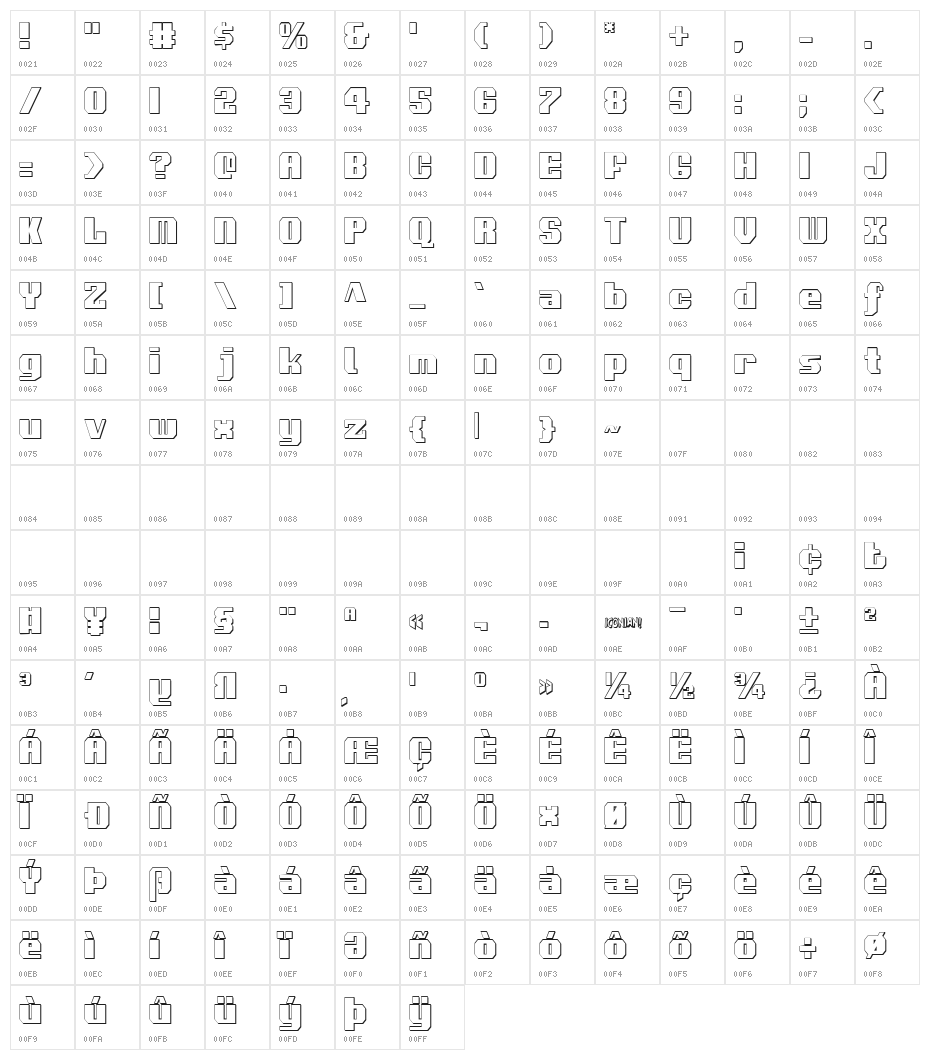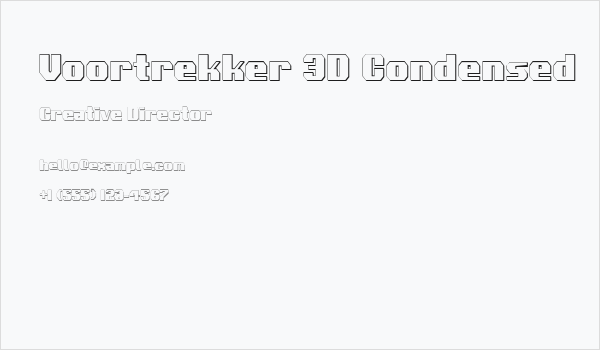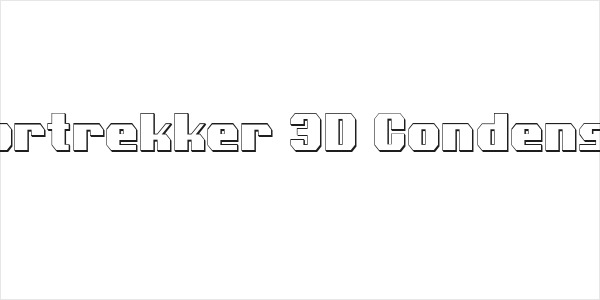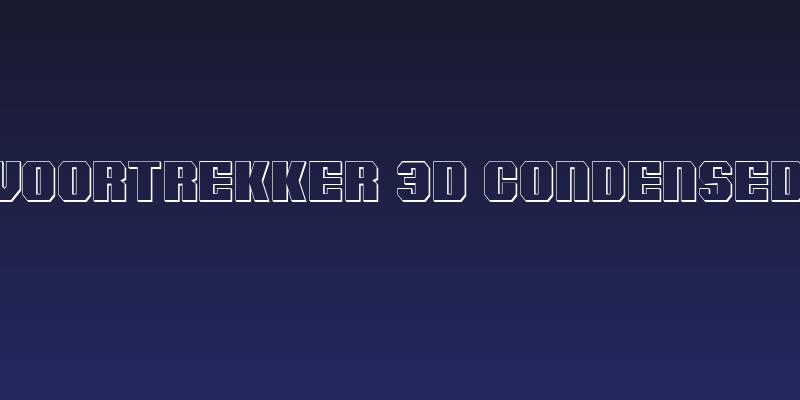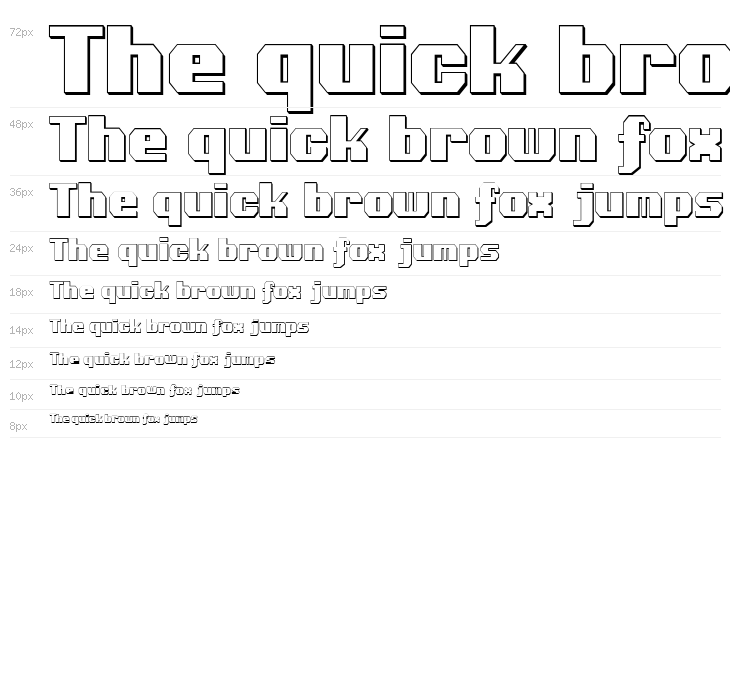
Voortrekker 3D Condensed Font
Voortrekker 3D Condensed Description
This font features a bold, three-dimensional appearance with a condensed structure. The characters are outlined, giving them a striking and impactful look. The geometric shapes and clean lines create a modern and futuristic feel. The uppercase and lowercase letters maintain a consistent style, with sharp angles and a blocky design. The numerals and special characters follow the same aesthetic, ensuring uniformity across all elements. This font is ideal for projects that require a strong visual presence and a contemporary touch.